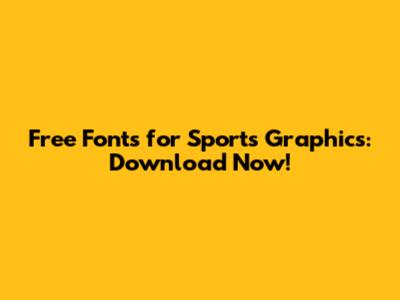
- Emotional Impact: Fonts have personalities. A bold, sans-serif font can scream "power" and "intensity," perfect for a football team. A script font, on the other hand, might be better suited for a more elegant sport like figure skating. Consider the emotions you want to evoke.
- Readability: This is huge! Your design could be stunning, but if no one can read the text, it's pointless. Ensure the font is legible, especially at smaller sizes. Think about banners, social media posts, and even apparel. Clarity is key.
- Brand Identity: If you're designing for a specific team or league, the font should align with their brand. Consistent use of fonts across all materials helps build a recognizable and professional identity. Imagine the New York Yankees using a playful, cartoonish font – it just wouldn't fit!
- Versatility: A great sports font should work in a variety of contexts. Can it be used for headlines, body text, and logos? A versatile font will save you time and effort in the long run.
- Visual Appeal: Ultimately, the font has to look good! It should complement the overall design and enhance the visual appeal of your graphics. Don't be afraid to experiment and try out different options until you find the perfect fit.
- Bold Sans-Serif Fonts: These fonts are your go-to for creating a strong, impactful look. Think big, chunky letters that command attention. They're perfect for headlines, logos, and anything that needs to stand out. Examples include Bebas Neue, Impact, and Oswald.
- Condensed Fonts: Condensed fonts are narrow and tall, making them great for fitting a lot of text into a small space. They're ideal for jersey numbers, team names, and scoreboards. Check out Roboto Condensed and Montserrat Condensed.
- Script Fonts: Use script fonts sparingly, as they can be harder to read. However, a well-chosen script font can add a touch of elegance and personality to your designs. They're great for creating a vintage or retro feel. Consider fonts like Pacifico or Lobster.
- Slab Serif Fonts: Slab serif fonts have thick, block-like serifs that give them a bold and sturdy appearance. They're perfect for conveying a sense of tradition and strength. Examples include Roboto Slab and Arvo.
- Distressed Fonts: Distressed fonts have a rough, textured appearance that adds a touch of grit and authenticity to your designs. They're great for creating a vintage or grunge-inspired look. Look for fonts with names like "Rough," "Grunge," or "Distressed."
- Pair Fonts Wisely: Don't just throw a bunch of different fonts together and hope for the best. Choose fonts that complement each other and create a visual hierarchy. A good rule of thumb is to pair a bold headline font with a simpler body text font. For example, you could pair Bebas Neue with Roboto.
- Consider Kerning and Tracking: Kerning is the space between individual letters, while tracking is the overall spacing between all letters in a word or line. Adjusting these settings can significantly improve the readability and visual appeal of your text. Pay attention to how the letters fit together and make adjustments as needed.
- Use Color Strategically: Color can play a huge role in how your font is perceived. Use colors that complement the font and the overall design. Consider the team's colors or the colors associated with the sport. For example, you might use a bold red or blue for a football team.